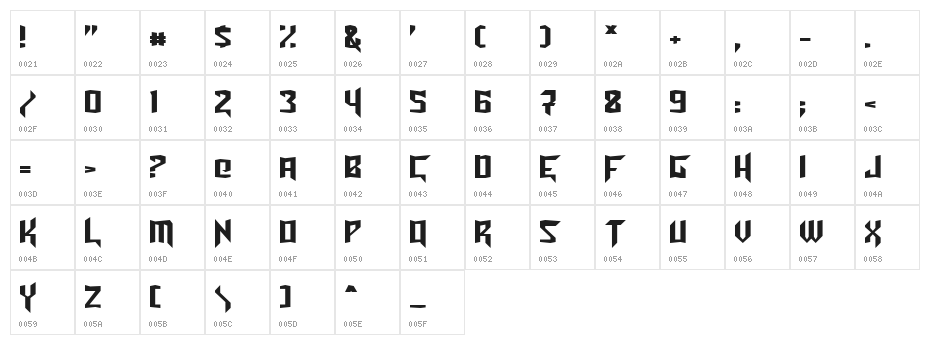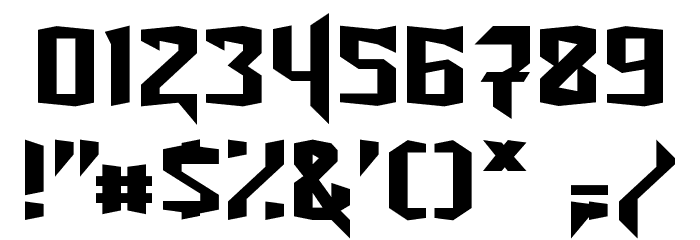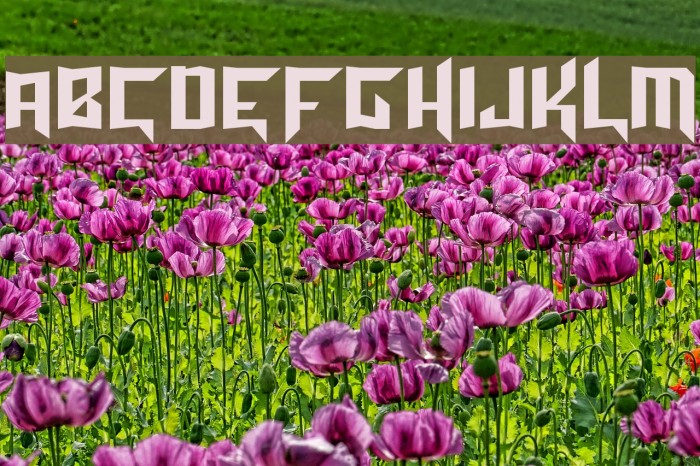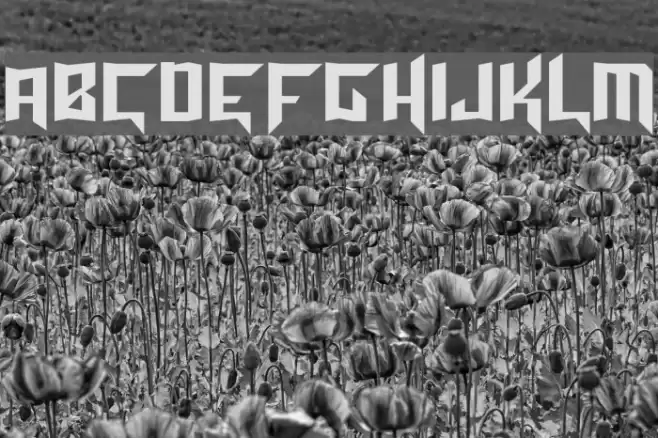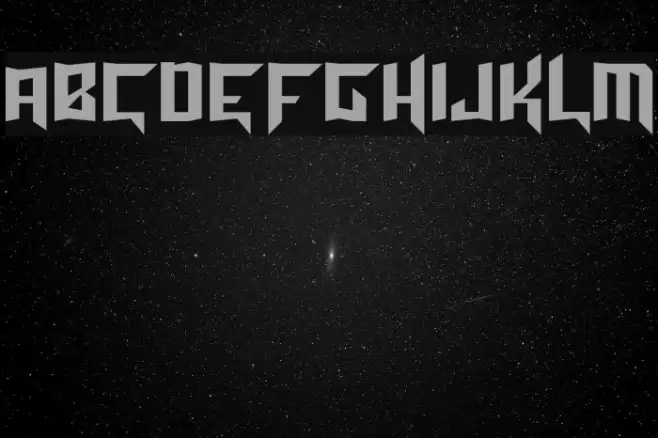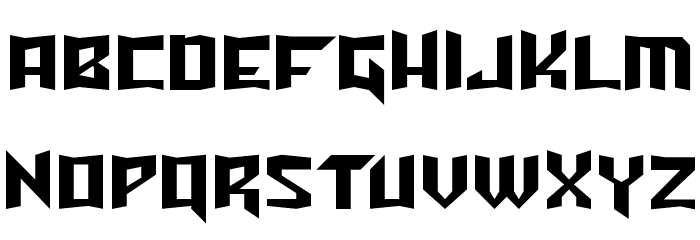
Turok Normal Font
Turok Normal Description
This font features a bold and angular design, characterized by sharp edges and geometric forms. The uppercase and lowercase letters maintain a consistent style, with a strong emphasis on straight lines and pointed corners. The numerals and special characters follow the same aesthetic, creating a cohesive and striking appearance. The overall look is modern and aggressive, making it suitable for projects that require a strong visual impact. The font's unique style is reminiscent of futuristic or sci-fi themes, with a touch of edginess that sets it apart from more traditional typefaces.
| Proposed Projects | Ideal for video game titles, movie posters, branding for tech companies, and any project needing a modern, edgy look. |